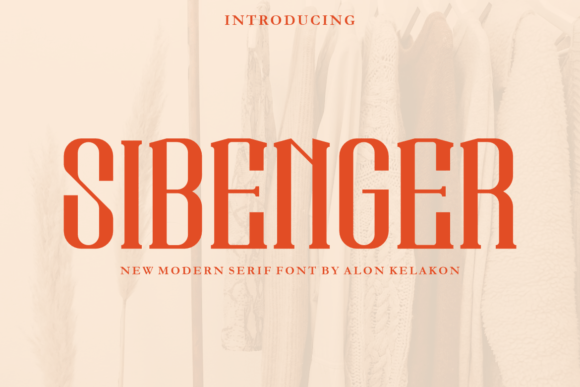
Behold Sibenger Font, a display font that's not just a font; it's a masterpiece. With its cool and stylish demeanor, Sibenger exudes confidence and sophistication, making it the perfect choice for creating reference letters that leave a lasting impression.
Crafted with precision and passion by alonkelakon, Sibenger isn't just a font; it's an experience. Its seamless blend of classic elegance and modern flair makes it a standout in any project. This display font is designed to elevate your words, adding a touch of class and distinction to every letter, word, and sentence.
Whether you're a seasoned professional crafting a reference letter for a valued colleague or a student seeking to make a strong impression on potential employers, Sibenger is your perfect companion. Its crisp, clean lines and captivating curves command attention, ensuring your words carry the weight they deserve.
With Sibenger, you can effortlessly create reference letters that speak volumes about your professionalism and attention to detail. Let Sibenger be your secret weapon to crafting reference letters that not only inform but also inspire.